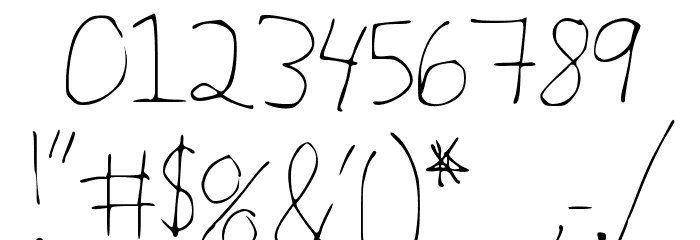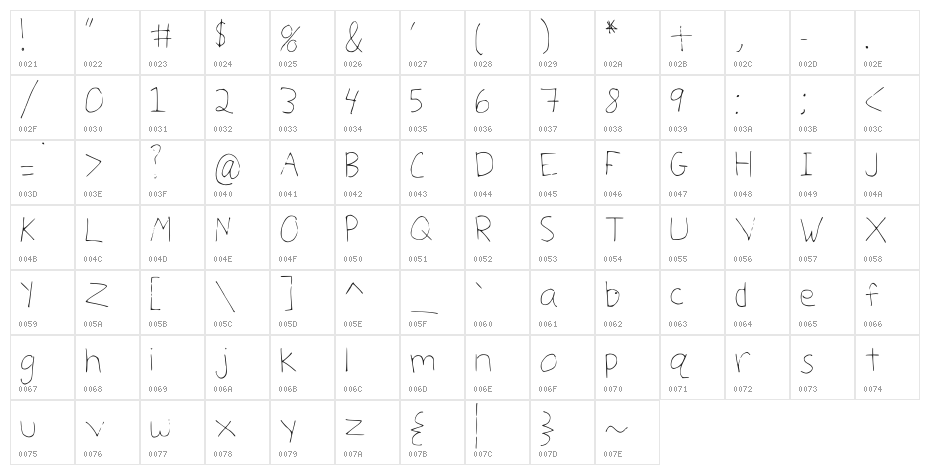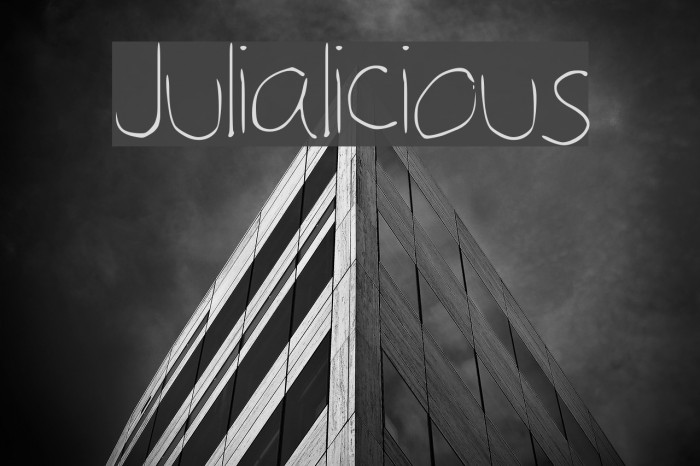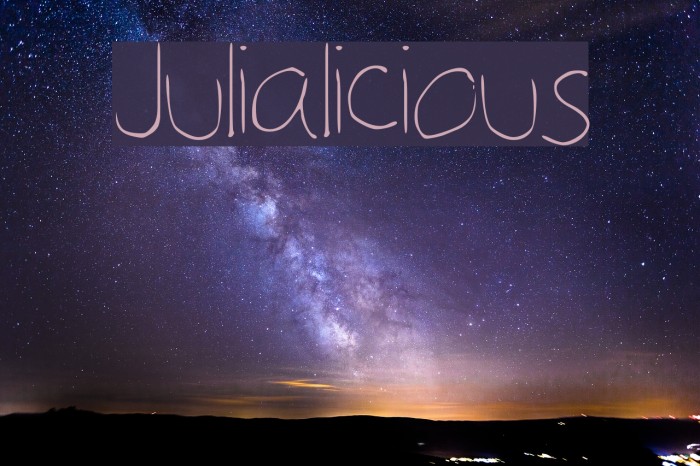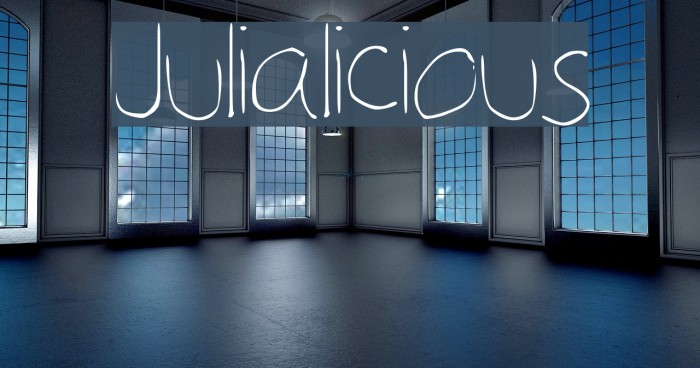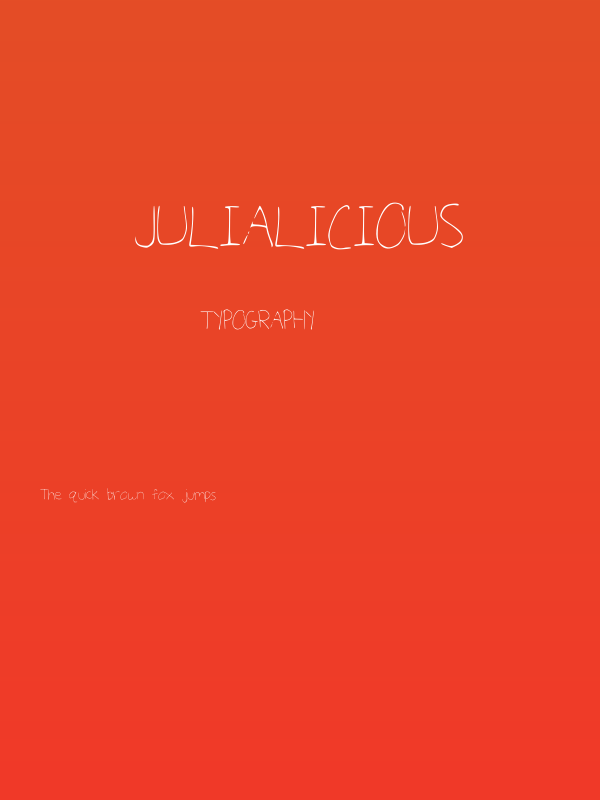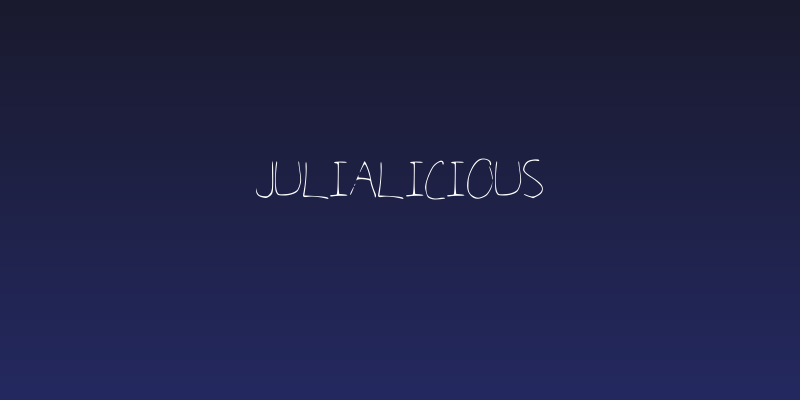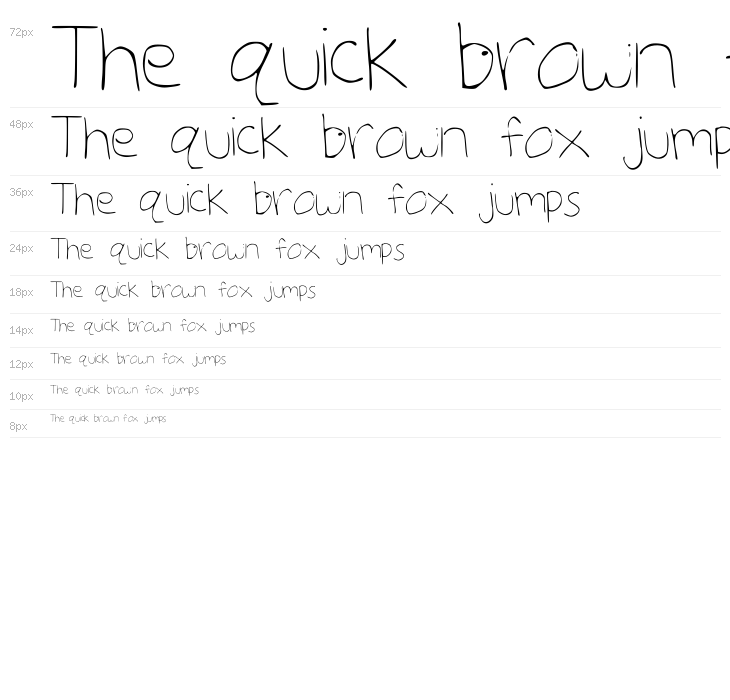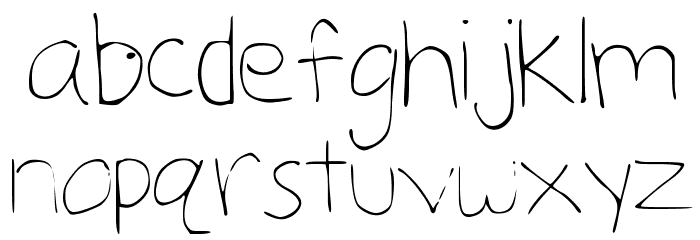
Julialicious Font
Julialicious Description
This font features a playful and whimsical handwritten style, characterized by its irregular strokes and casual appearance. The letters are slightly uneven, giving it a personal and informal touch. The uppercase and lowercase letters maintain a consistent flow, while the numbers and special characters complement the overall aesthetic. The font's thin lines and unique character shapes make it stand out, adding a touch of creativity and individuality to any design project.
| Overall Style | Casual, Creative |
| Use Case | Headlines, Invitations, Personal projects |
| Proposed Projects | Ideal for greeting cards, children's books, personal blogs, and creative branding. |